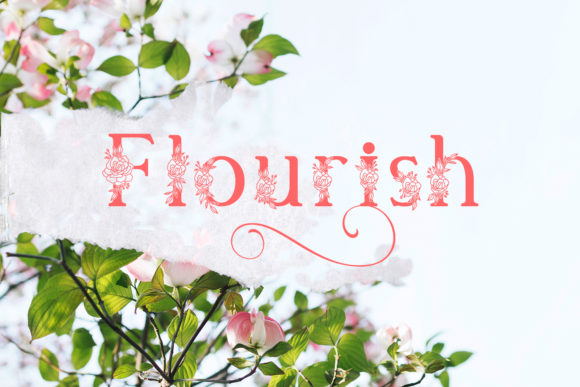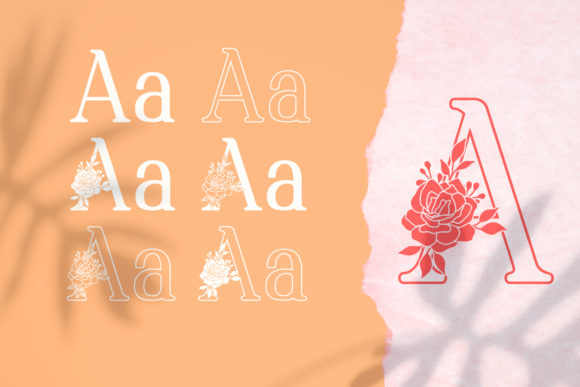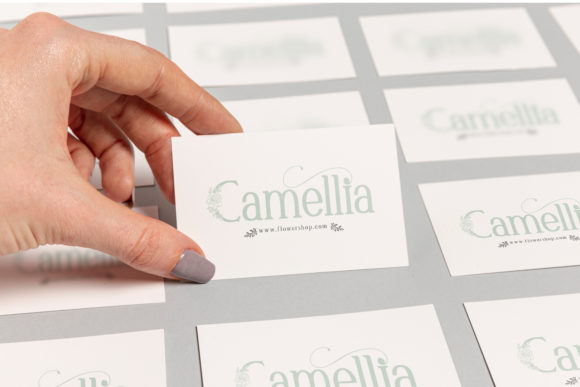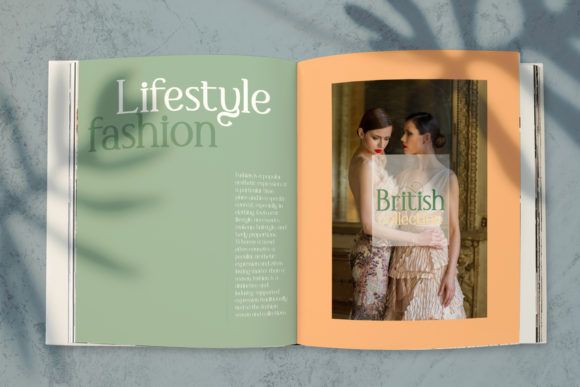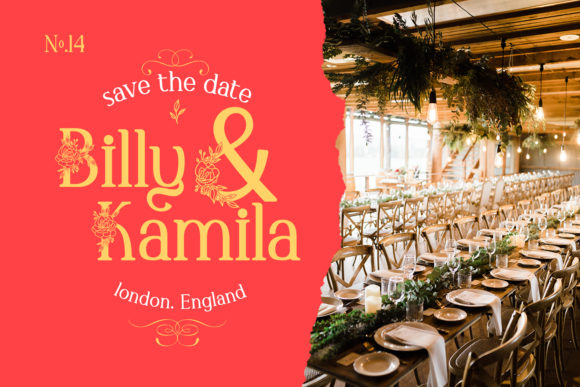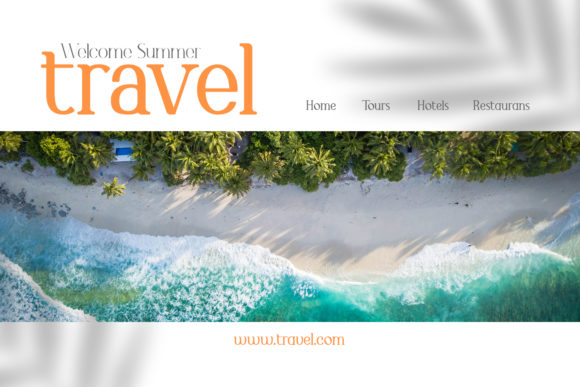
Discover the Elegance of El Katana Font: A Versatile Serif Font for Your Creative Projects
Are you a designer or crafter looking for a font that exudes elegance and sophistication? Look no further than El Katana, a thin and delicate serif font that is sure to capture your heart. With its incredibly versatile style, El Katana is perfect for creating a wide range of creative projects, from gorgeous wedding invitations and beautiful stationery art to eye-catching social media posts and more.
The Characteristics of El Katana Font
El Katana is a serif font that is characterized by its thin and delicate lines. Its classic serif design gives it a timeless and sophisticated look that is perfect for projects that require a touch of elegance. The font’s versatility is one of its standout features, making it suitable for a wide range of applications, from formal to informal.
Uses of El Katana Font
So, what can you create with El Katana font? The possibilities are endless! Here are a few ideas to get you started:
- Wedding Invitations: El Katana is perfect for creating beautiful and elegant wedding invitations that will set the tone for your special day.
- Stationery Art: Add a touch of sophistication to your stationery art with El Katana’s delicate lines and classic serif design.
- Social Media Posts: Create eye-catching social media posts that will grab the attention of your followers with El Katana’s elegant and refined style.
- Branding: Use El Katana to create a professional and sophisticated brand identity that will help you stand out from the competition.
- Packaging: Add a touch of elegance to your product packaging with El Katana’s versatile and refined style.
Why Choose El Katana Font?
So, why should you choose El Katana font for your creative projects? Here are just a few reasons:
- Unique and Elegant: El Katana’s thin and delicate lines give it a unique and elegant look that will set your projects apart.
- Versatile: El Katana is incredibly versatile, making it suitable for a wide range of applications and projects.
- Easy to Read: Despite its delicate lines, El Katana is easy to read, making it perfect for body text and other applications where readability is key.
- High-Quality: El Katana is a high-quality font that is designed to deliver exceptional results in your creative projects.
Tips for Using El Katana Font
Here are a few tips for getting the most out of El Katana font:
- Pair it with Other Fonts: El Katana pairs well with a wide range of fonts, so don’t be afraid to experiment and find the perfect combination for your project.
- Use it for Headings: El Katana’s elegant and refined style makes it perfect for headings and titles.
- Experiment with Colors: El Katana looks great in a wide range of colors, so don’t be afraid to experiment and find the perfect color scheme for your project.
| Font Name | El Katana Font |
| Author | madeDeduk |
In conclusion, El Katana font is a versatile and elegant serif font that is perfect for designers and crafters looking to add a touch of sophistication to their creative projects. With its thin and delicate lines, classic serif design, and incredibly versatile style, El Katana is sure to capture your heart and deliver exceptional results in your projects. So why wait? Discover the elegance of El Katana font today and take your creative projects to the next level!